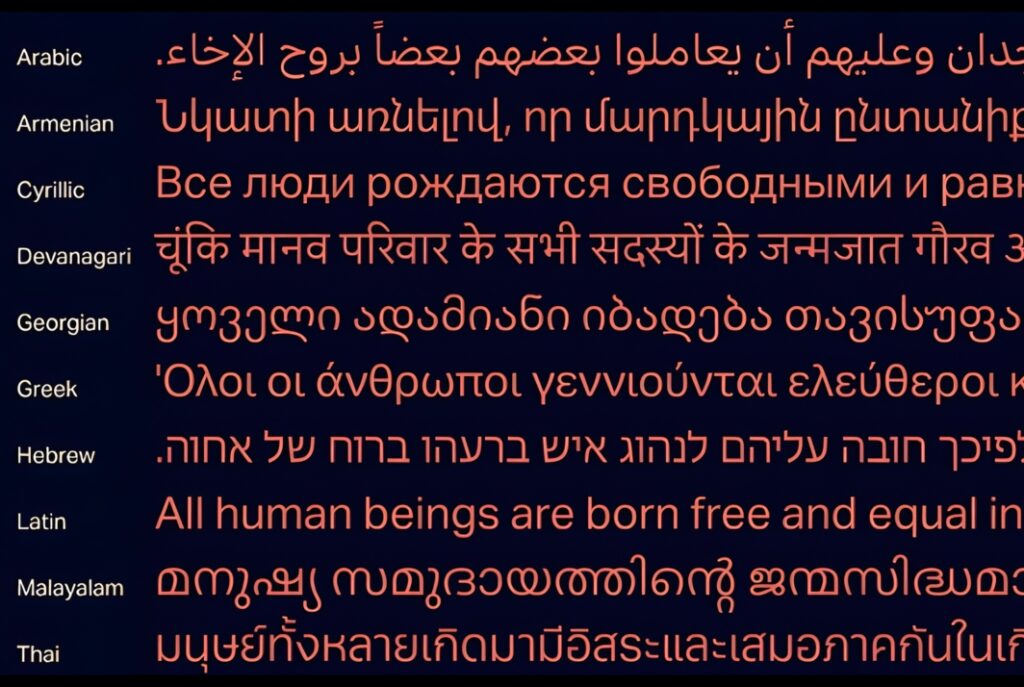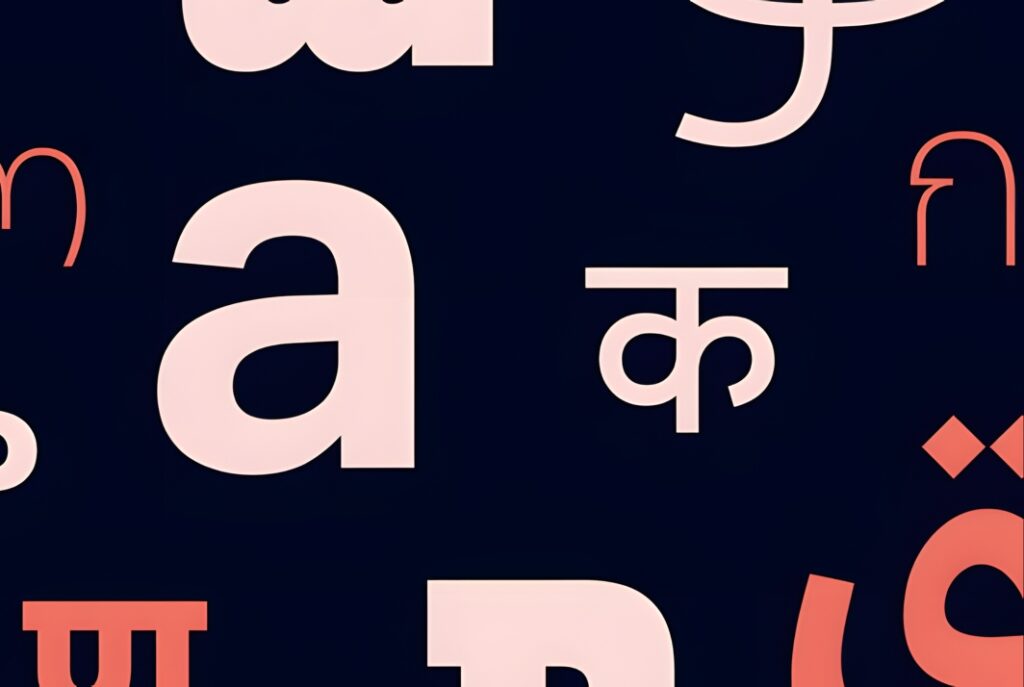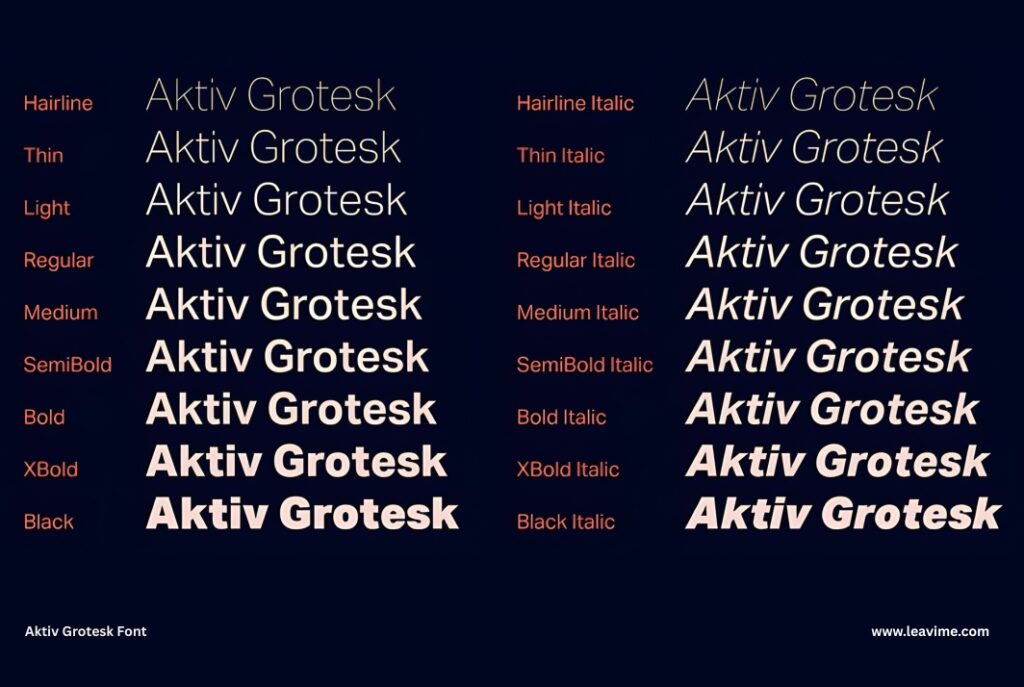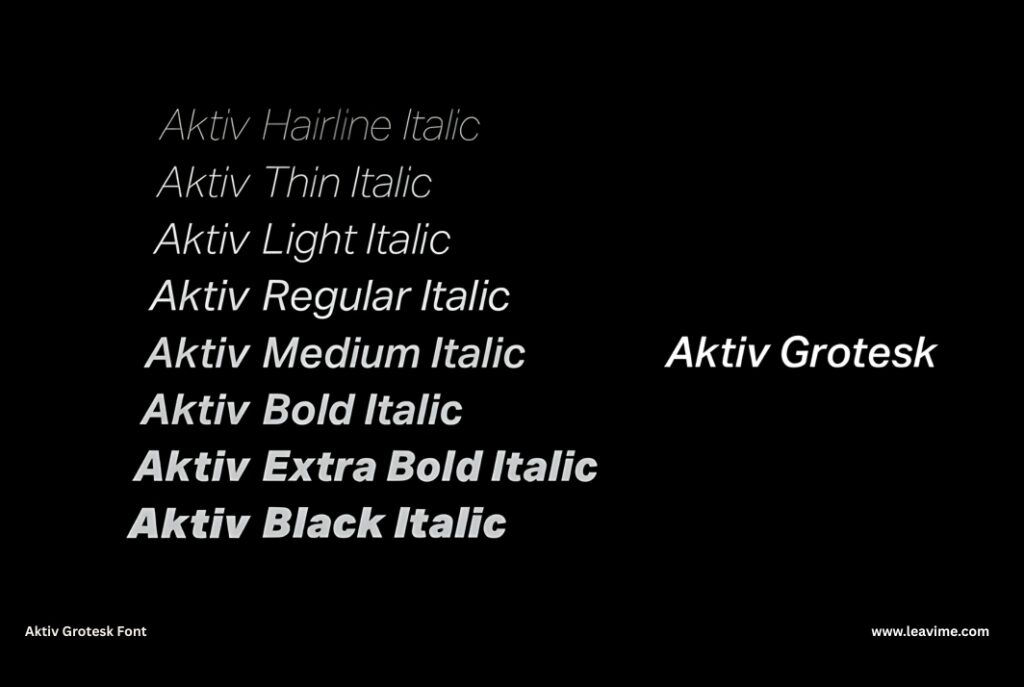
Aktiv Grotesk Sans Serif Font Family
Aktiv Grotesk is a versatile sans serif font created to deliver clarity, balance, and professionalism across a wide range of design projects. Developed by Dalton Maag, this typeface was carefully designed to provide a neutral yet confident appearance that supports content without distracting from it. Whether used in branding, editorial layouts, digital interfaces, or corporate communications, Aktiv Grotesk offers a clean and modern aesthetic that adapts effortlessly to different visual environments. Its restrained character makes it particularly useful for designers who want typography that enhances a message while maintaining excellent readability.
One of the strongest advantages of Aktiv Grotesk is its extensive family font system. The collection includes 24 styles accompanied by matching italics, ranging from Hairline to Black. This wide selection provides designers with exceptional flexibility when building visual hierarchies and creating consistent brand identities. The availability of multiple weights allows projects to maintain a cohesive appearance while offering enough variation for headlines, subheadings, body text, and supporting content. As a result, Aktiv Grotesk can serve as a complete typographic solution for both small and large-scale design systems.
Unlike many traditional grotesque typefaces that often possess strong visual personalities, Aktiv Grotesk takes a more refined and approachable approach. Its design focuses on neutrality, making it suitable for a broad range of industries and applications. This quality allows businesses, organizations, and creative professionals to communicate information clearly without the typography becoming the center of attention. The typeface creates a sense of trust and professionalism while maintaining a contemporary appearance that feels relevant in modern design.
The development of Aktiv Grotesk reflects Dalton Maag’s commitment to functional typography. Every letterform has been carefully crafted to ensure legibility across different screen sizes and print formats. The balanced proportions and thoughtful spacing contribute to a smooth reading experience, whether the font is used in lengthy articles, marketing materials, presentations, or website interfaces. Its adaptability makes it an excellent choice for projects that require consistency across multiple platforms and devices.
Brand designers frequently choose Aktiv Grotesk because of its ability to create a strong visual foundation. A successful brand identity often depends on typography that can communicate confidence while remaining flexible enough to support different types of content. Aktiv Grotesk fulfills this requirement by offering a sophisticated appearance that feels modern without becoming trendy. This timeless quality helps brands maintain a professional image over the long term, reducing the need for frequent design updates.
Another notable feature is the font’s compatibility with a variety of other typefaces. Aktiv Grotesk was designed to remain faithful to the grotesque tradition while pairing effectively with serif fonts. It works particularly well alongside classic serif families, creating a balanced combination of modern simplicity and traditional elegance. Designers often use such pairings to establish contrast within editorial layouts, corporate reports, and branding projects. The result is a harmonious visual relationship that enhances readability and aesthetic appeal.
In digital environments, Aktiv Grotesk performs exceptionally well due to its clean structure and clear letterforms. User interface designers appreciate its ability to remain legible on screens of all sizes, from mobile devices to large desktop displays. The font maintains visual consistency even at smaller sizes, ensuring that important information remains accessible to users. This characteristic makes it a valuable choice for websites, applications, dashboards, and digital publications.
Print designers also benefit from the flexibility of Aktiv Grotesk. Its extensive range of weights supports everything from elegant magazine layouts to bold advertising campaigns. Whether used for headlines, product packaging, brochures, or corporate stationery, the typeface delivers a polished and professional appearance. The consistency between styles allows designers to create sophisticated layouts while maintaining a unified visual language throughout a project.
As modern design continues to prioritize clarity and user experience, Aktiv Grotesk remains a highly relevant typeface. Its neutral personality, broad style range, and excellent readability make it suitable for virtually any professional application. By combining functionality with contemporary aesthetics, the font provides designers with a reliable tool for creating effective visual communication. Whether the goal is branding, publishing, digital design, or corporate communication, Aktiv Grotesk offers the versatility and quality needed to support a wide variety of creative projects.